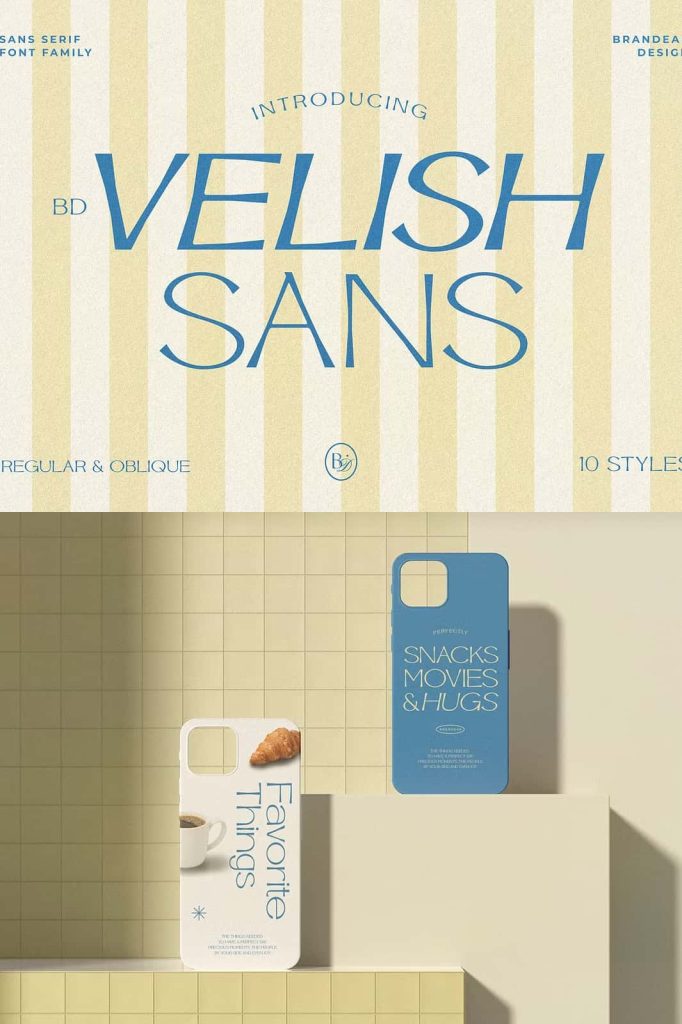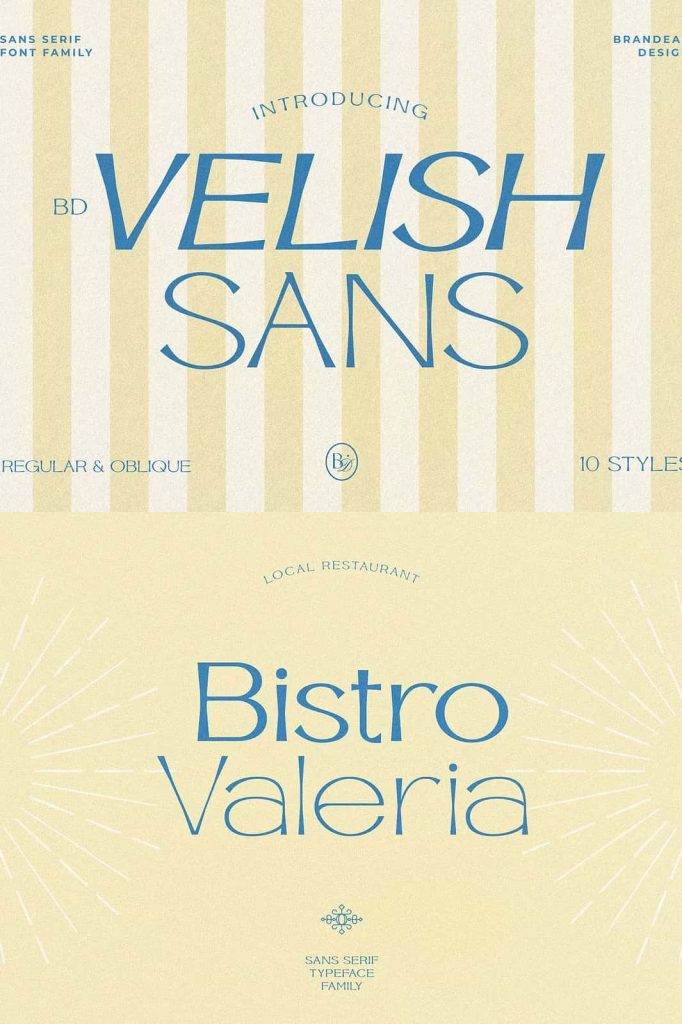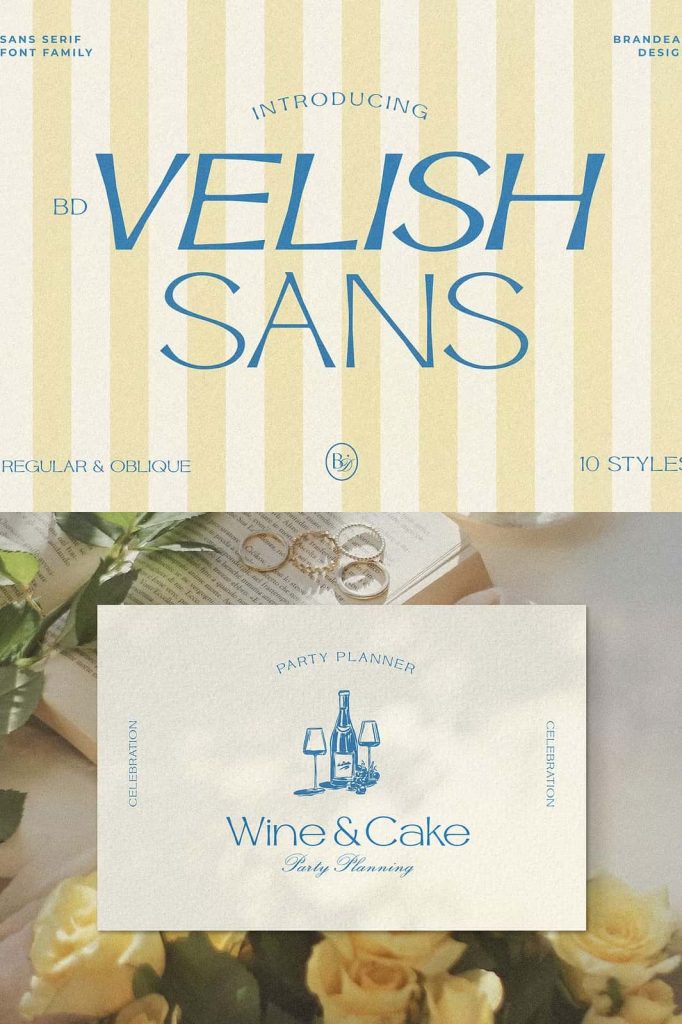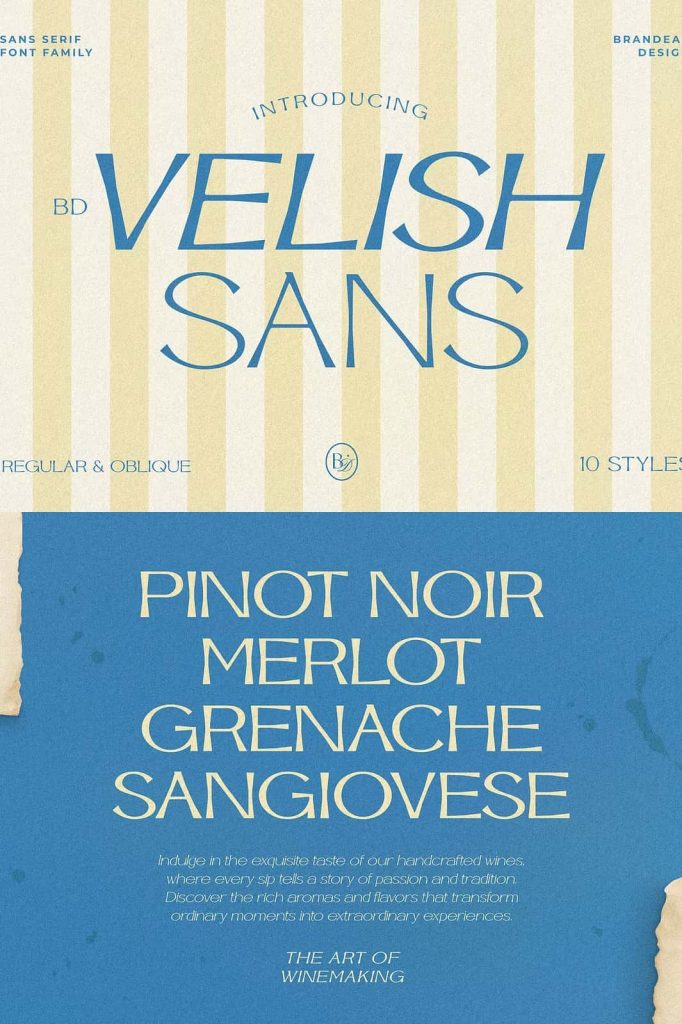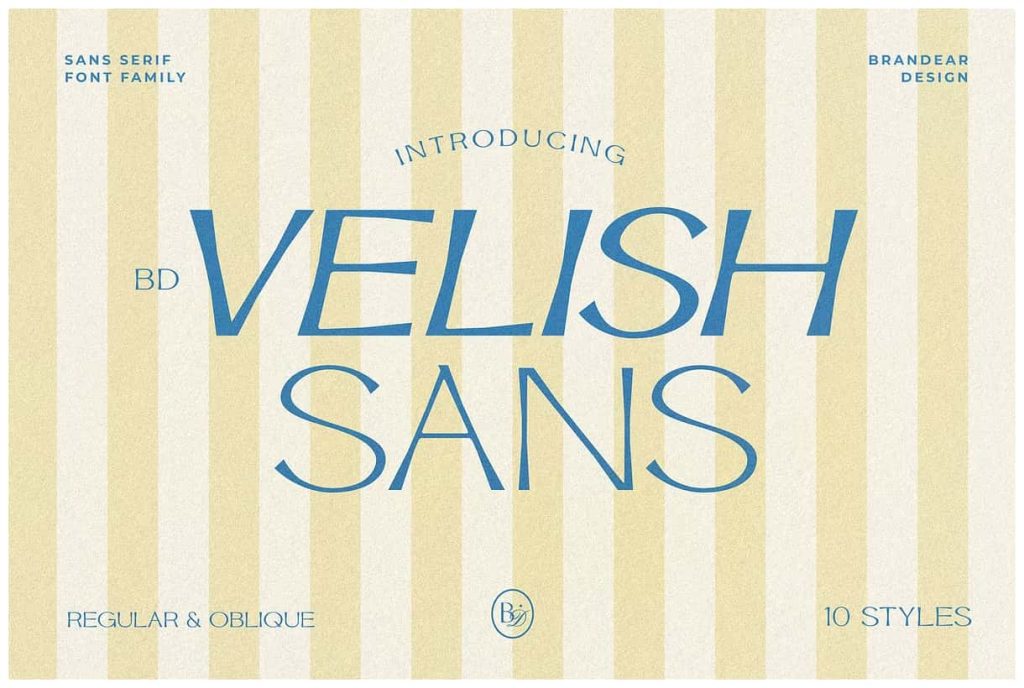
Introducing BD Velish Sans!
This unique sans serif font is here to add a special touch to your creative projects. With 5 different weights, it adapts beautifully to various design needs and offers a distinctive charm.
Introducing BD Velish Sans!
This unique sans serif font is here to add a special touch to your creative projects. With 5 different weights, it adapts beautifully to various design needs and offers a distinctive charm.